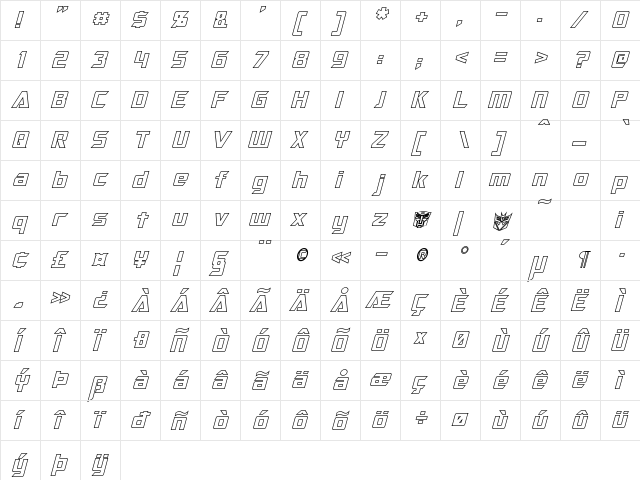
Optimus Hollow Italic
| Foundry | Neale Davidson |
| Designer | Neale Davidson |
Design Context for Optimus Hollow Typeface
Optimus Hollow takes a measured approach to typography — its balanced proportions and neutral character make it a reliable workhorse for both digital and print work. Its italic angle brings a sense of urgency and motion to the letterforms.
Pro Tip: Try Optimus Hollow for annotation and caption copy alongside an upright companion — the contrast in angle creates a dynamic but ordered typographic system.